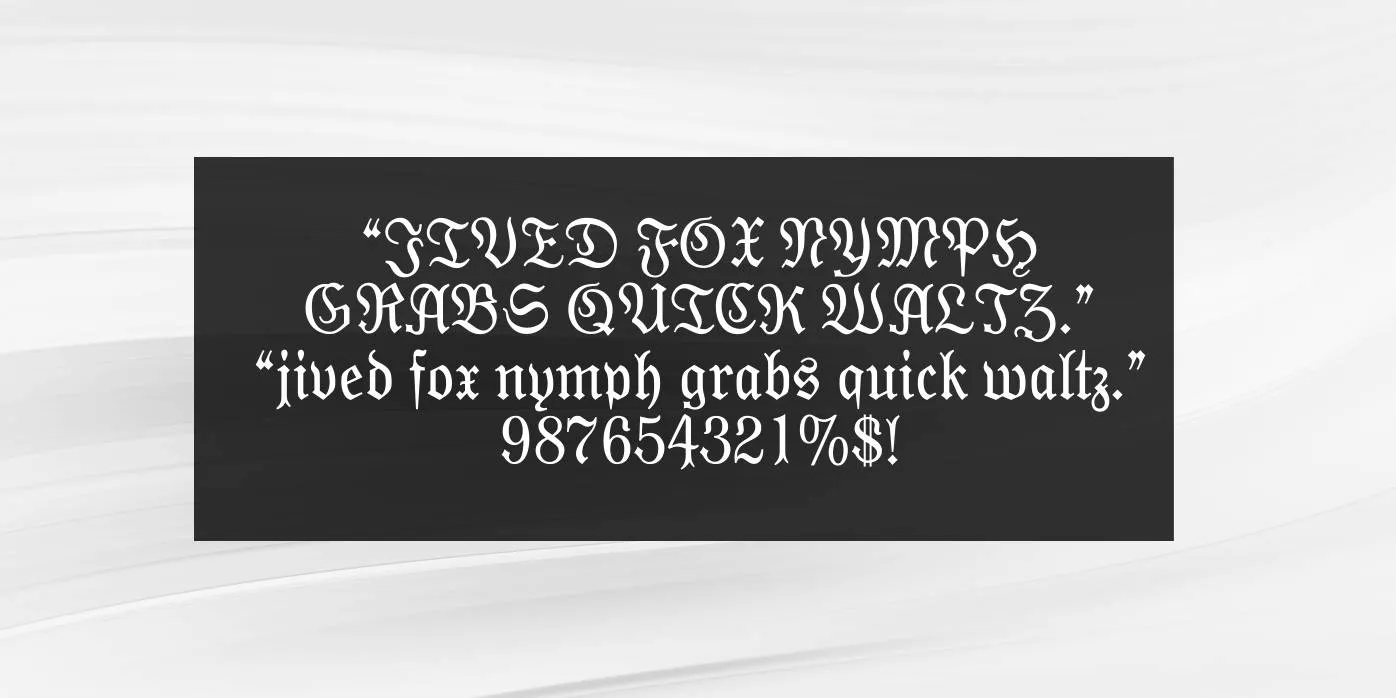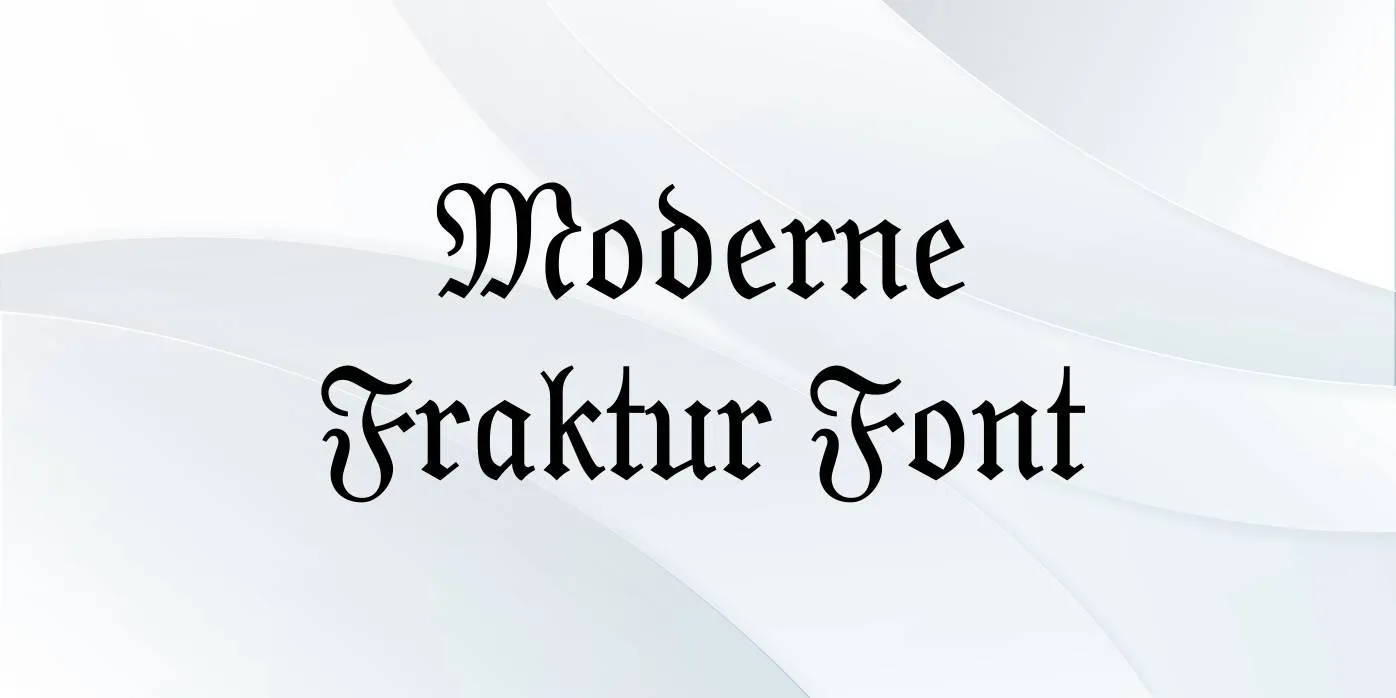
Moderne Fraktur Font
Here, we are going to present a very stunning typeface that is known by the name Moderne Fraktur Font. It belongs to the gothic font family. This awesome typeface was designed by Dieter Steffmann. It has neat and clean textures.
This staggering typeface is based on the blackletter scripts of the German Renaissance. These typefaces were very popular in Germany during the 1500s and 1600s. Its copy and paste function is very beneficial for all text designs. You can also use kanit font which is closest to this font family.
This gorgeous font includes many of the features of these older fonts, such as sharp diagonal strokes and ornate capital letters. However, it also has some unique features that make it stand out from other gothic fonts. This awesome font has shorter ascenders and descenders than most other gothic fonts. This gives it a more modern look.
If you are looking for a gothic font with a modern twist, then the Moderne Fraktur font is perfect for your designs.